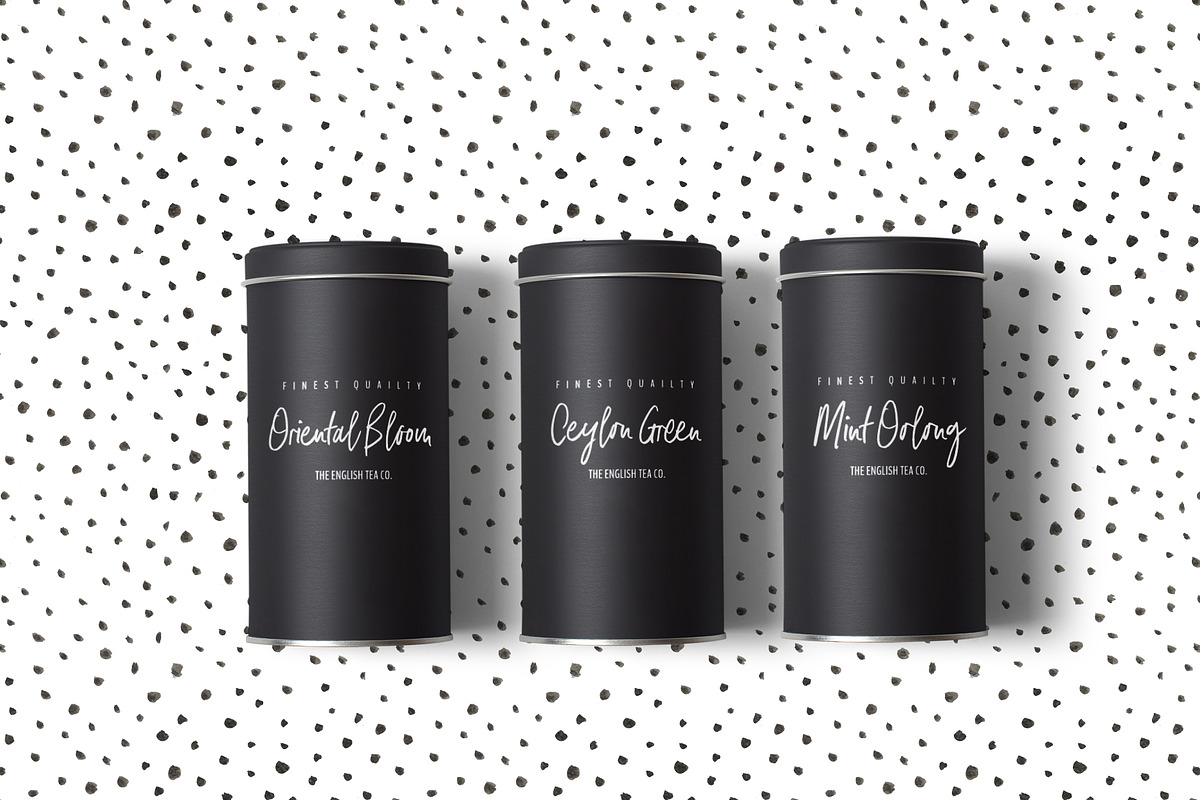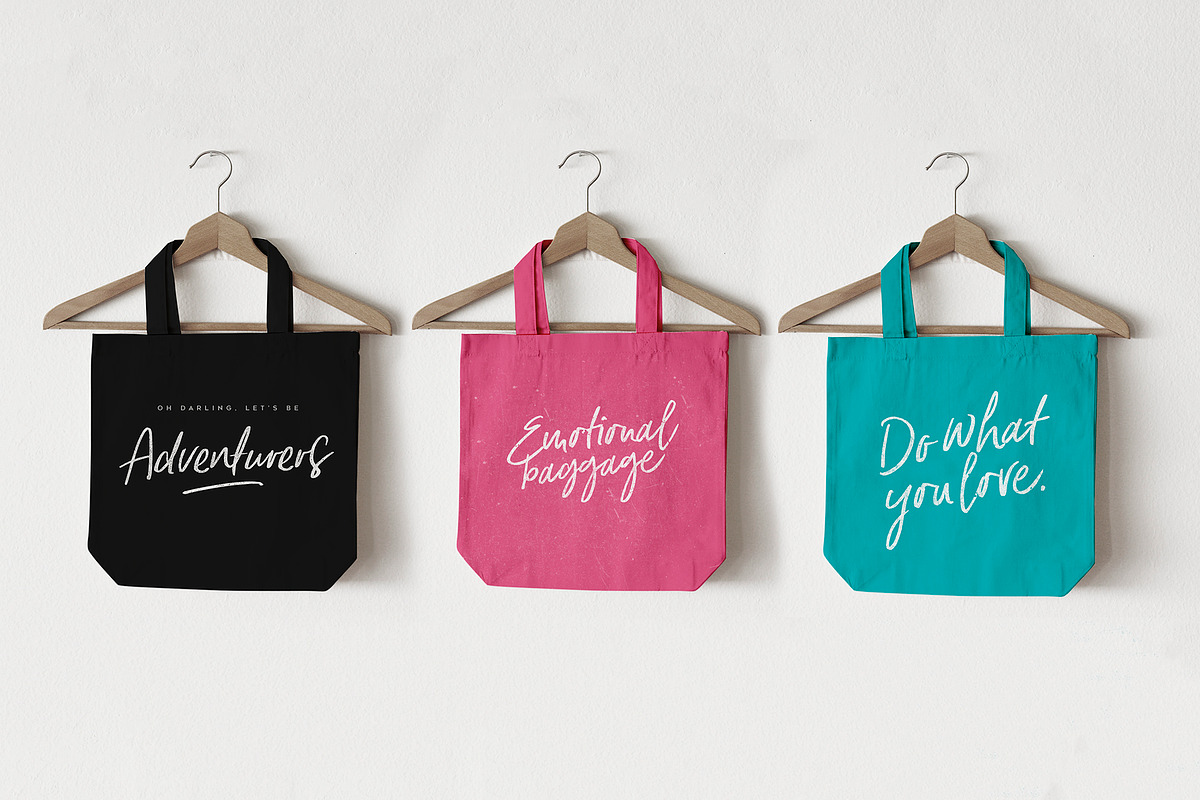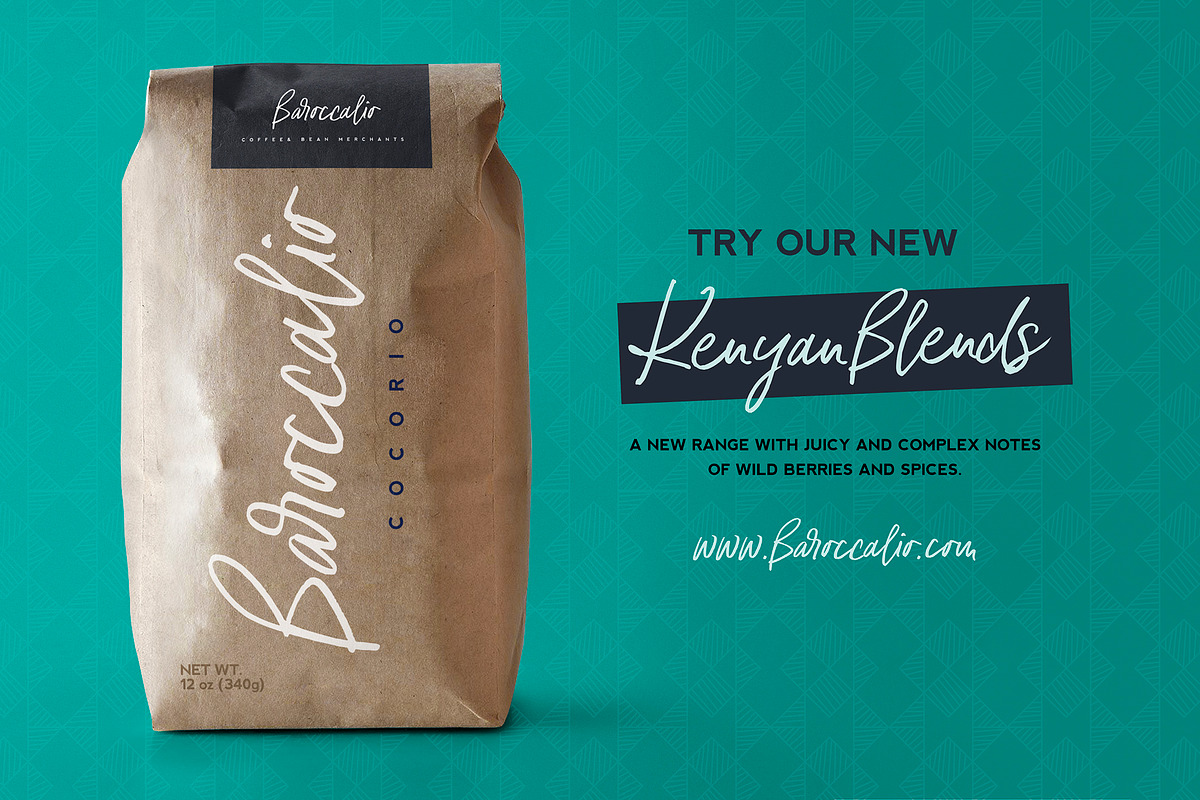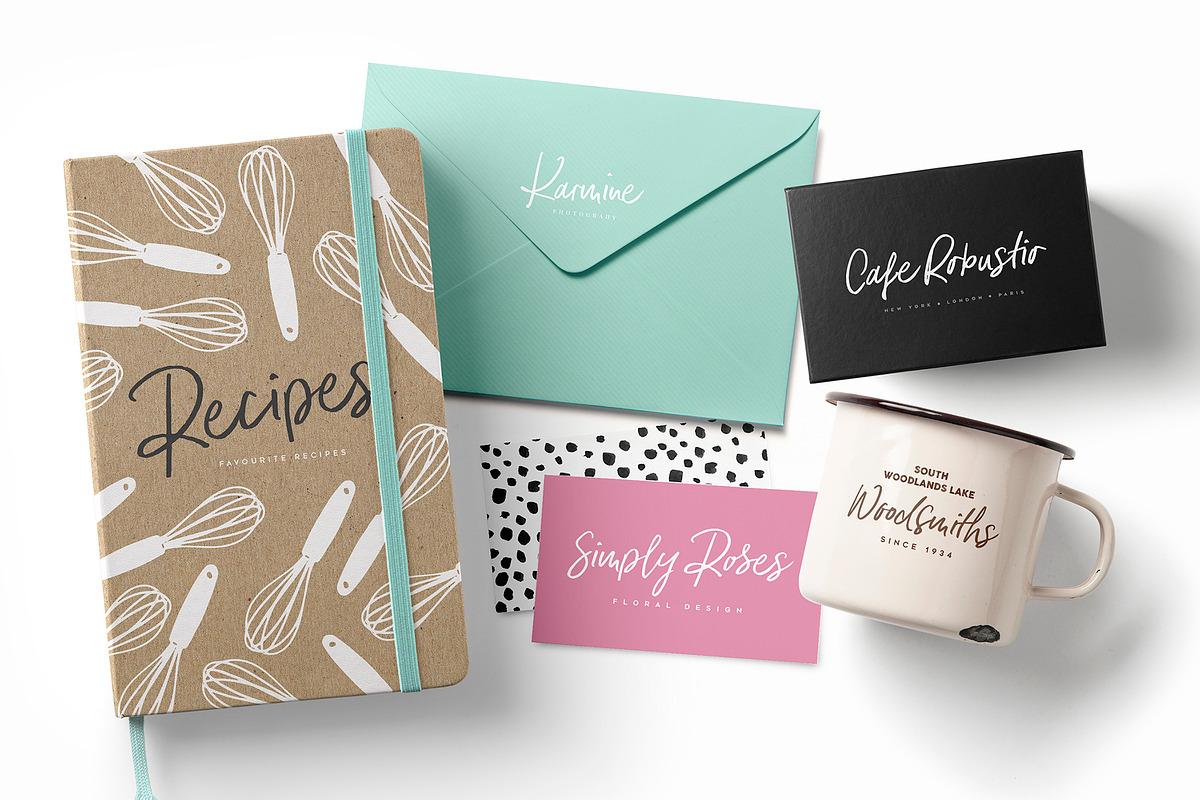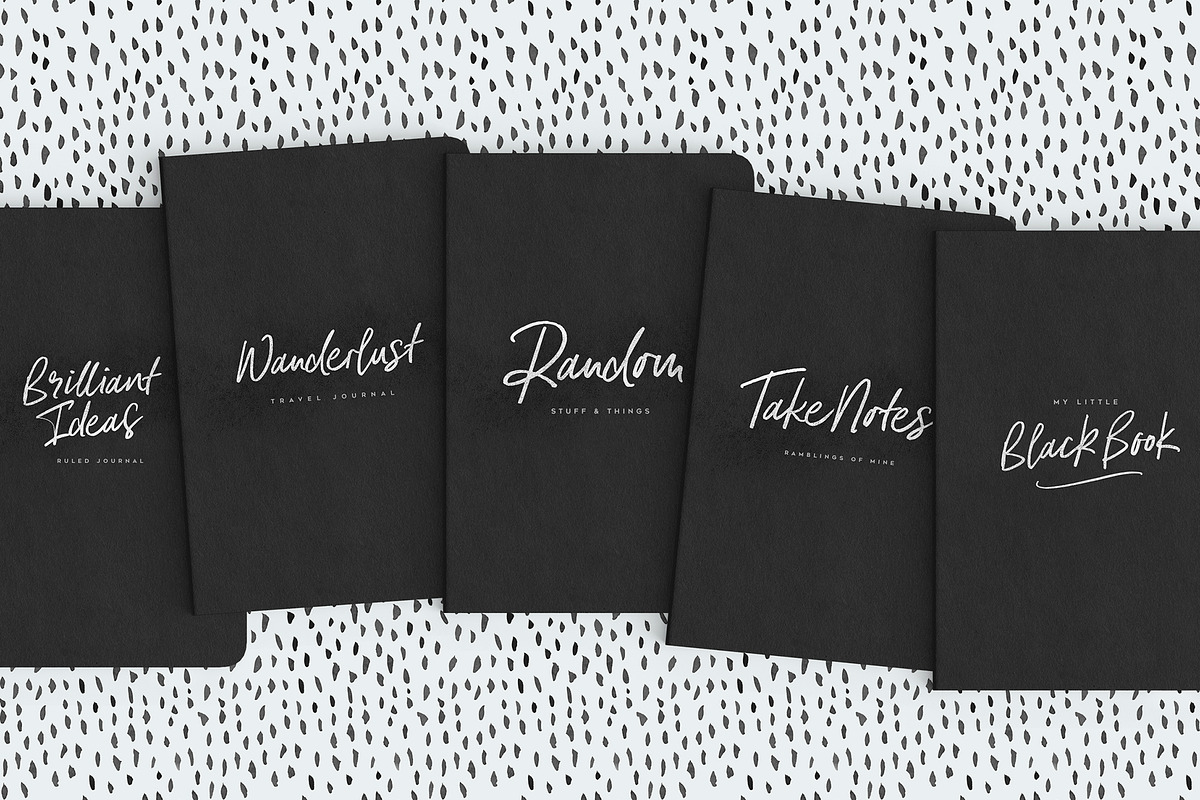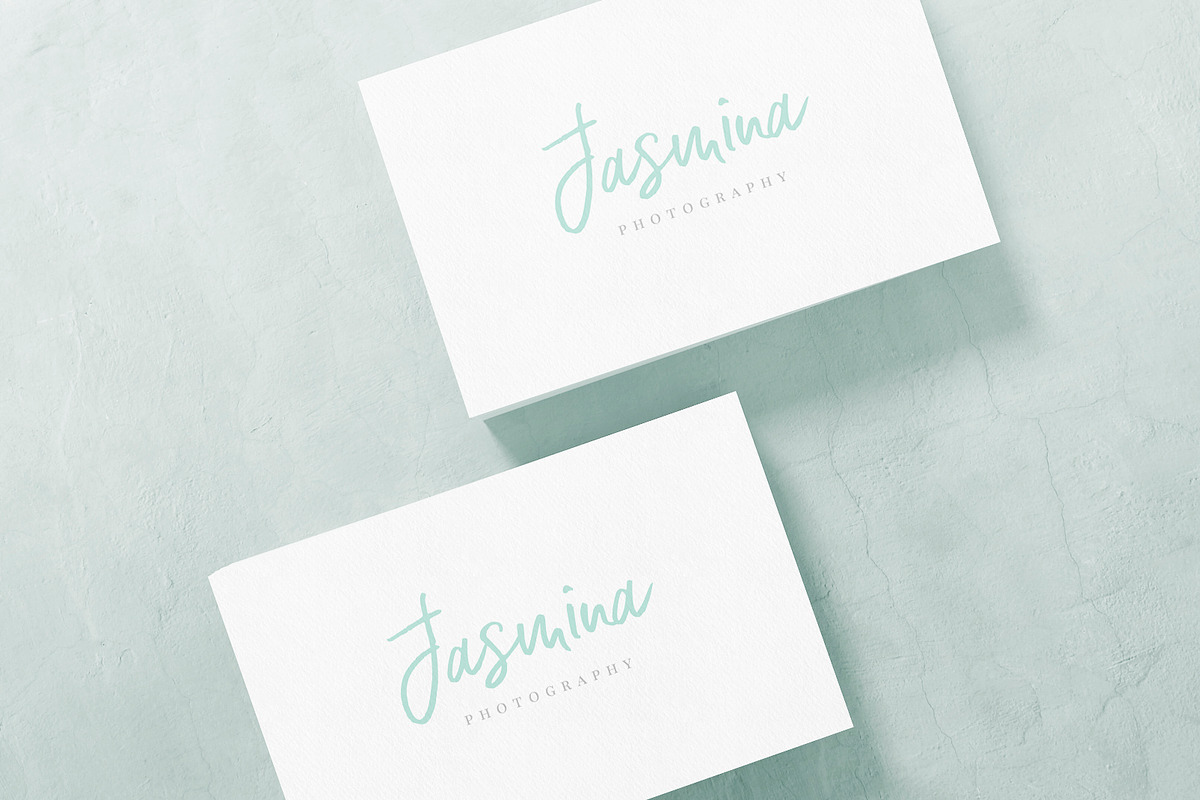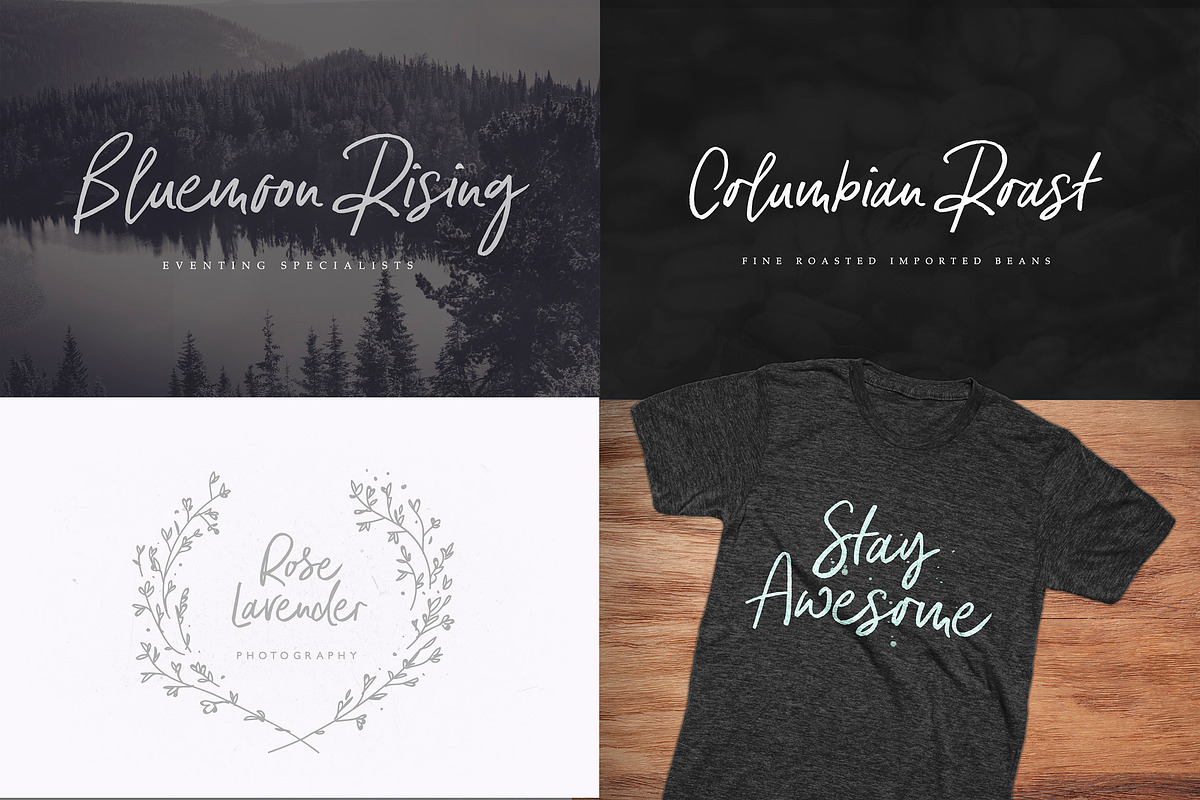
Indigo Blue Font + Swashes
Indigo Blue Font + Swashes by Nicky Laatz is a font selected for branding, posters, packaging, typography.
- A charming new handwritten font with bonus swashes and TONS of character :) Indigo Blue is coded with special Opentype Features to make it l
- A handy little Swash font is included as a bonus to add some punch to your designs :) You don't even need special software to access all the
Why Indigo Blue Font + Swashes is worth a look
Indigo Blue Font + Swashes by Nicky Laatz fits naturally into Branding, posters, packaging, typography.